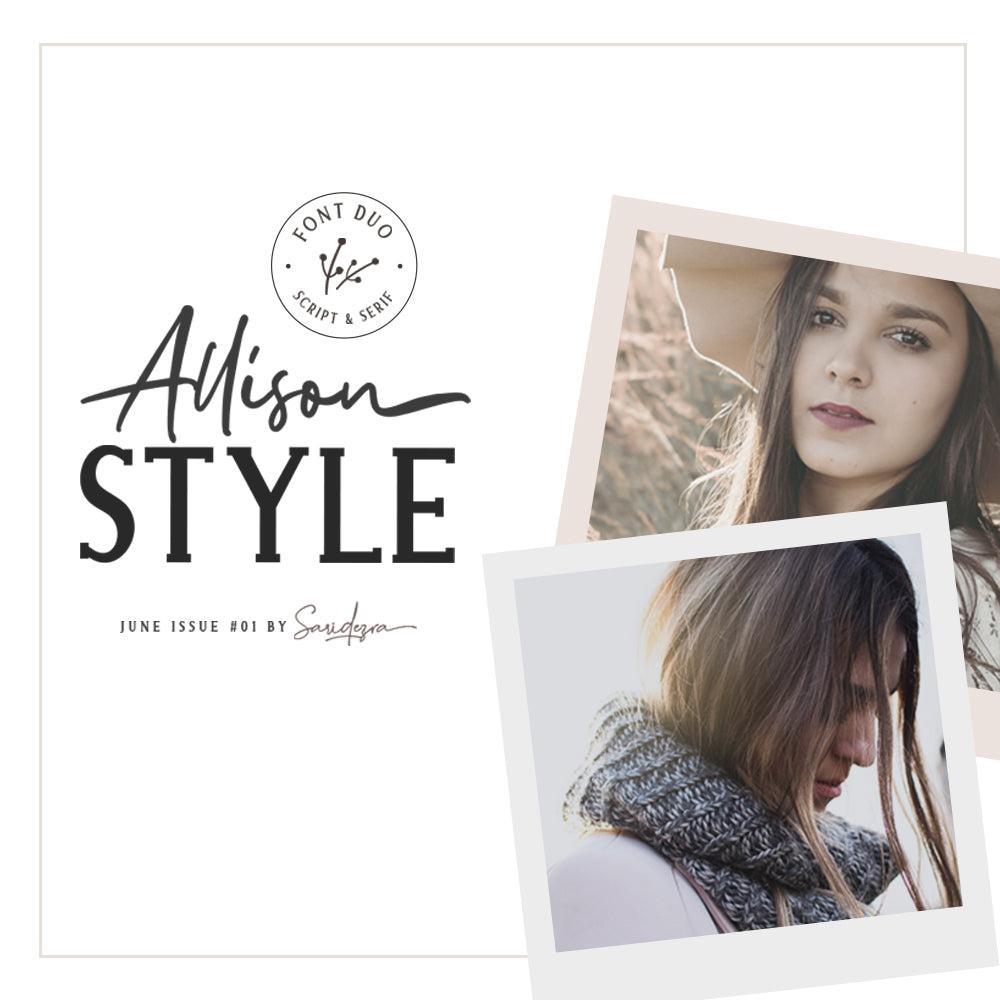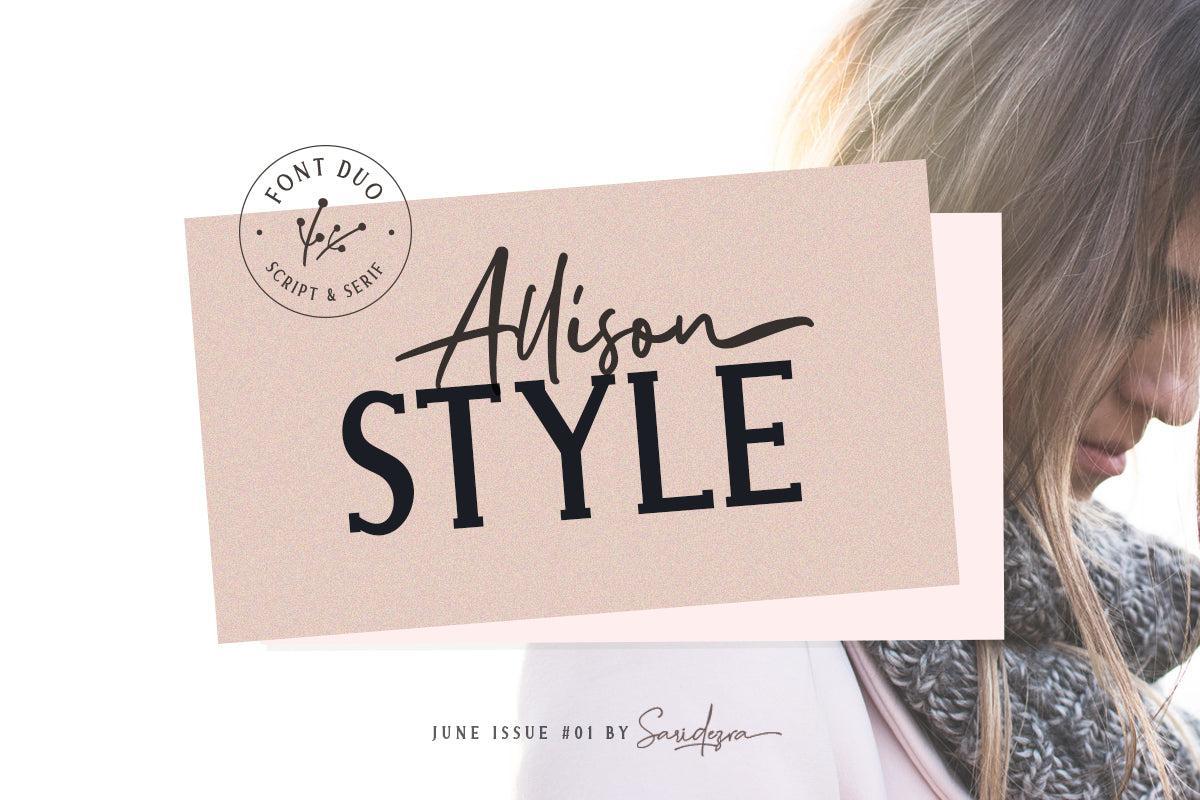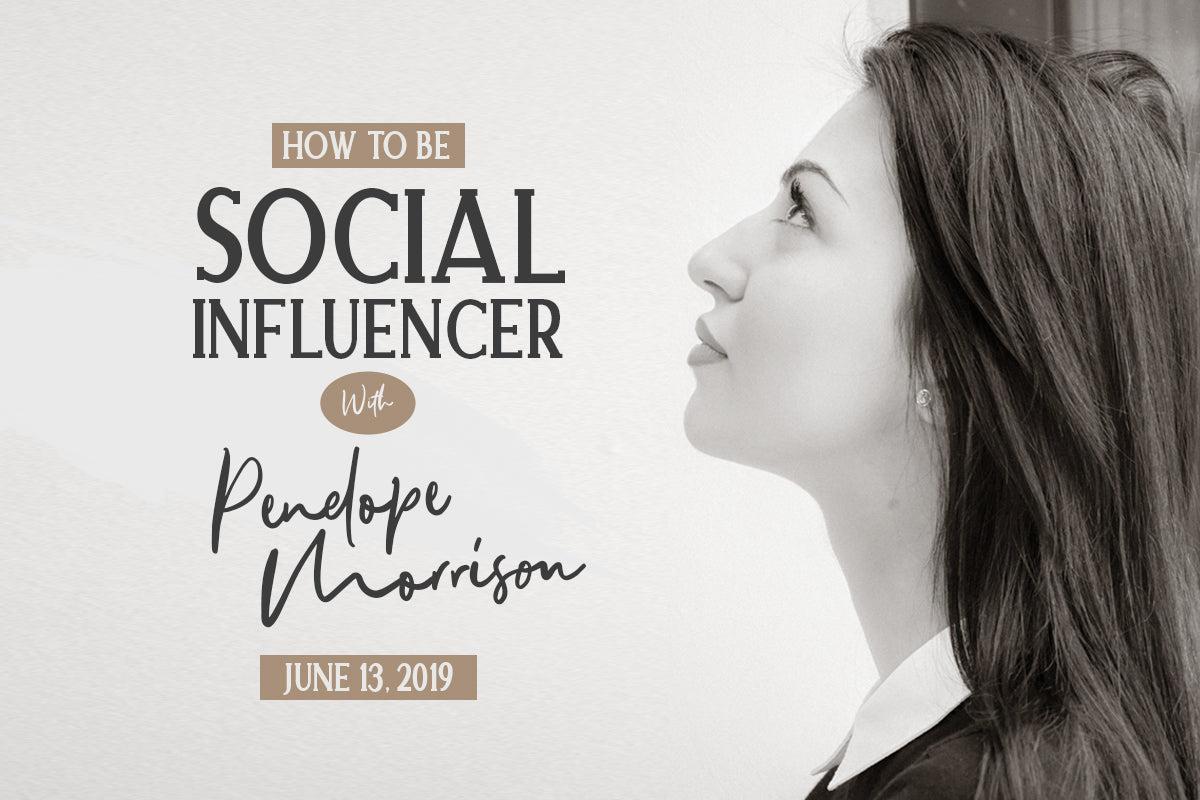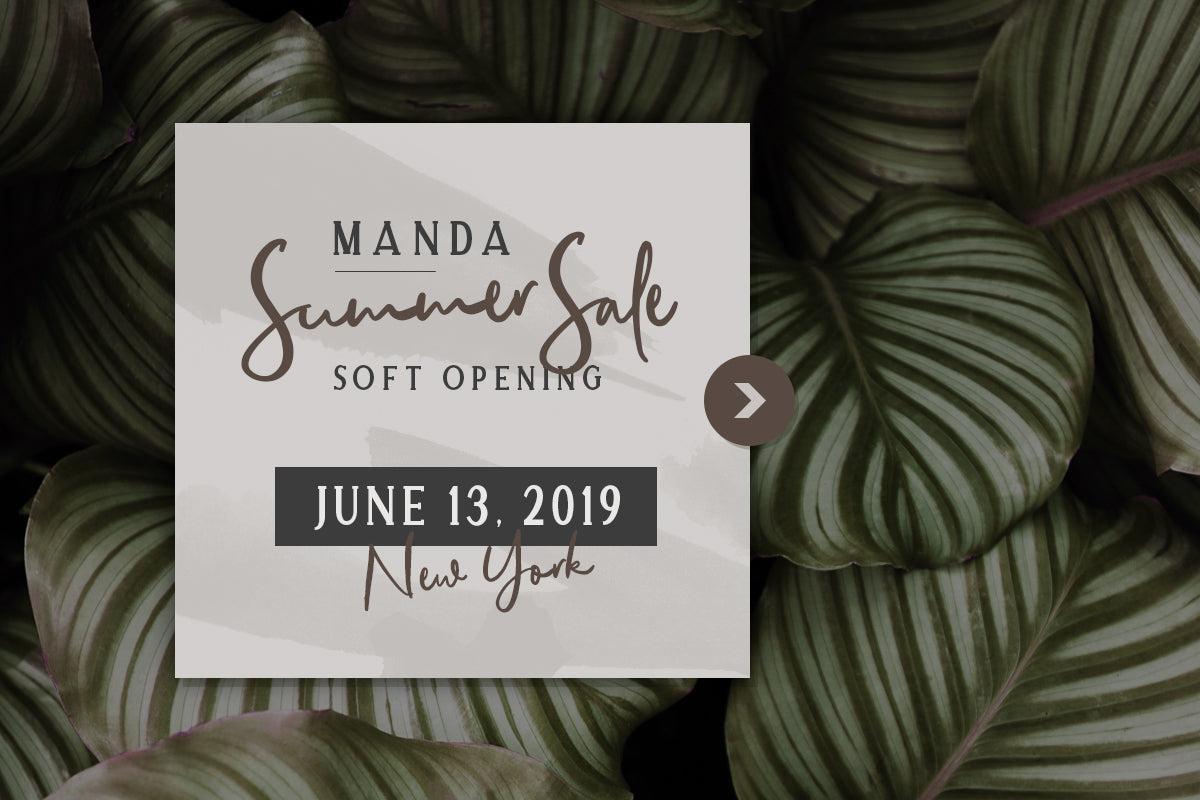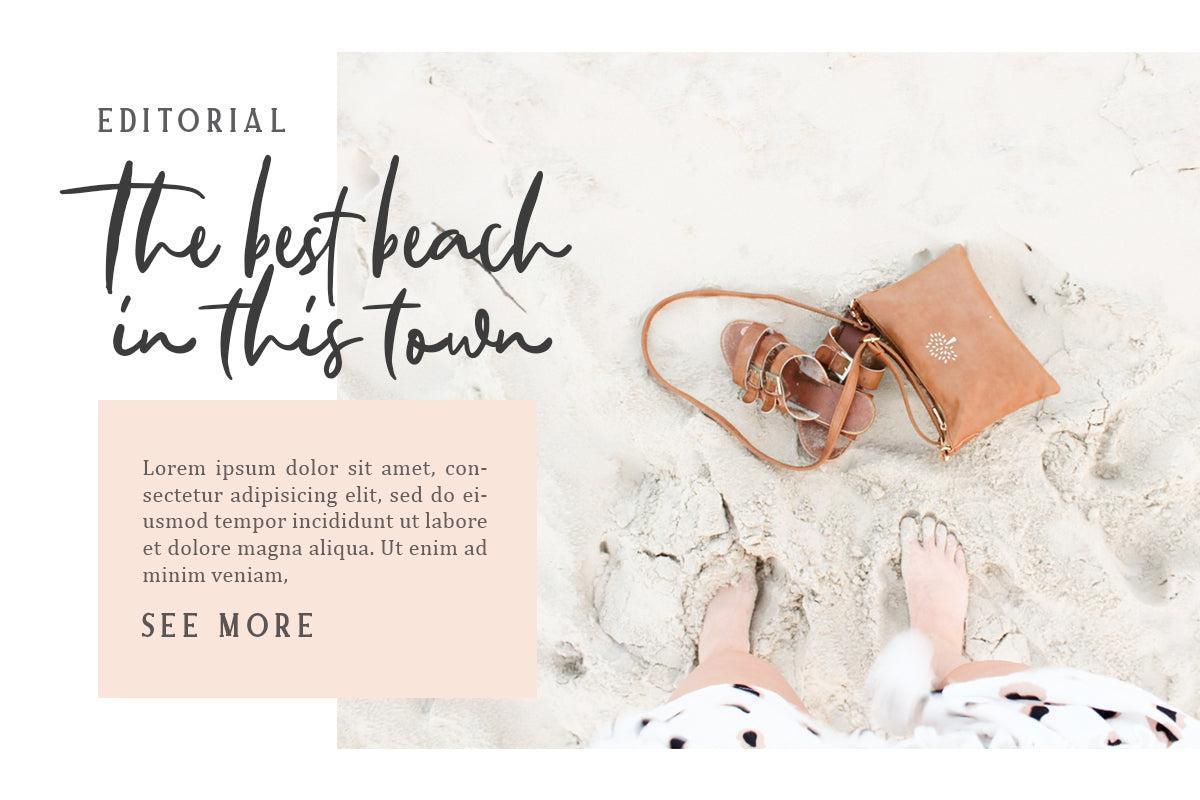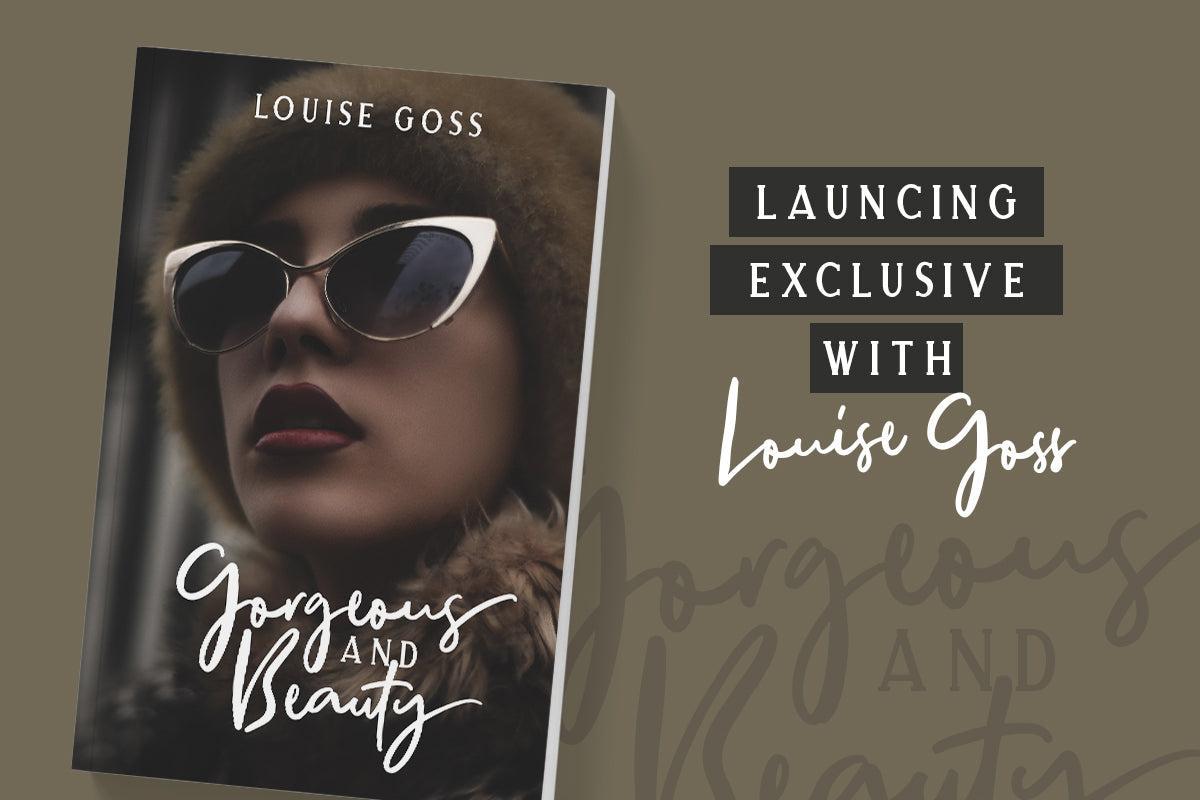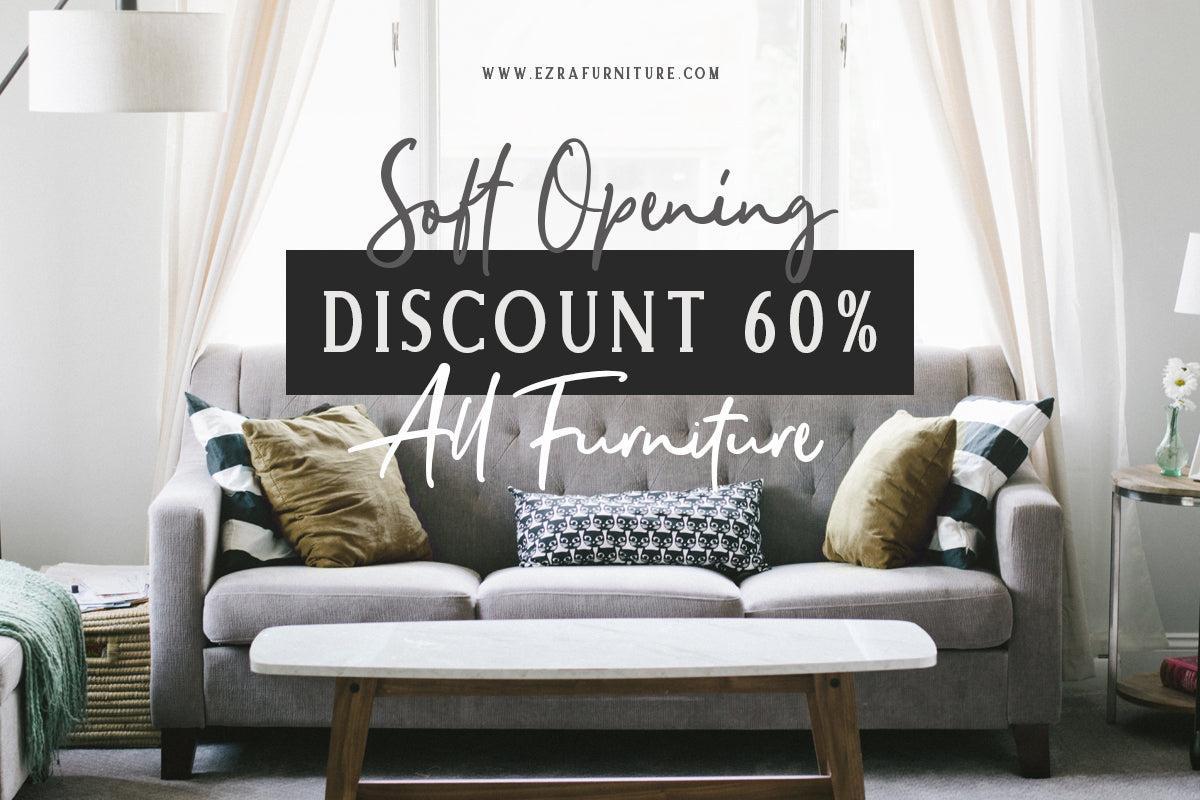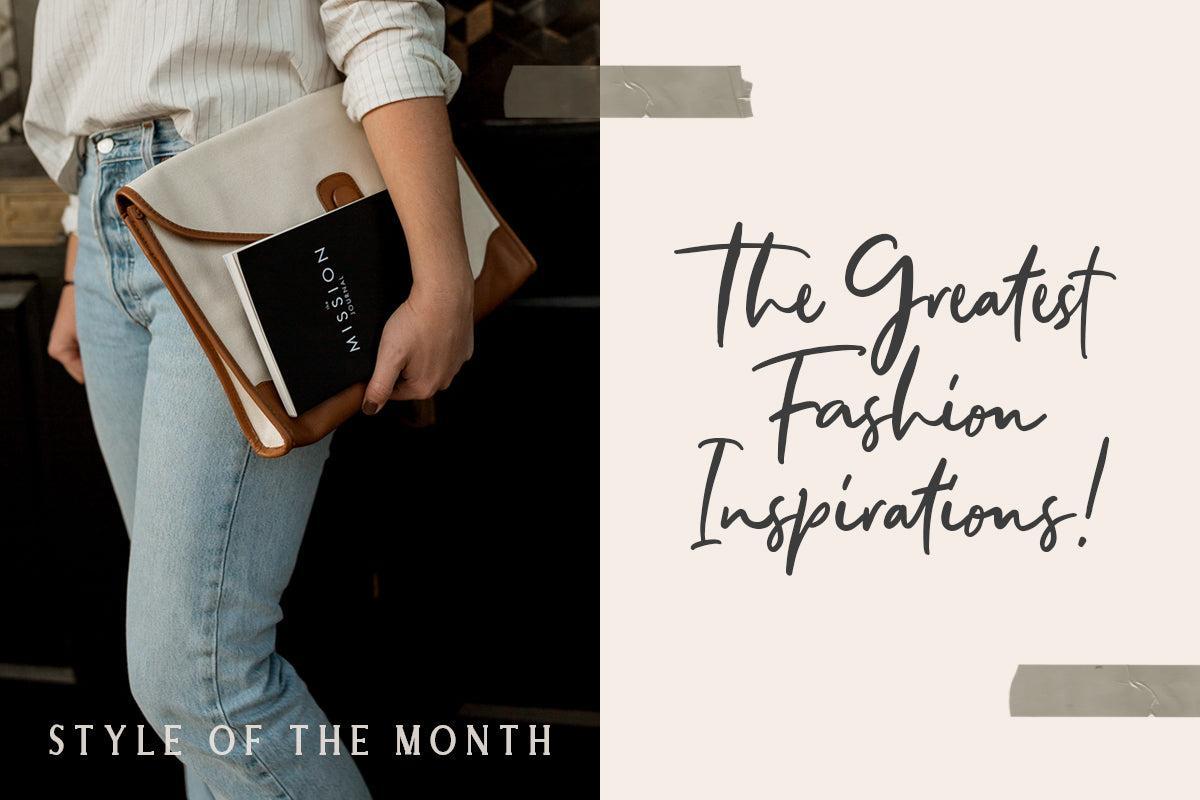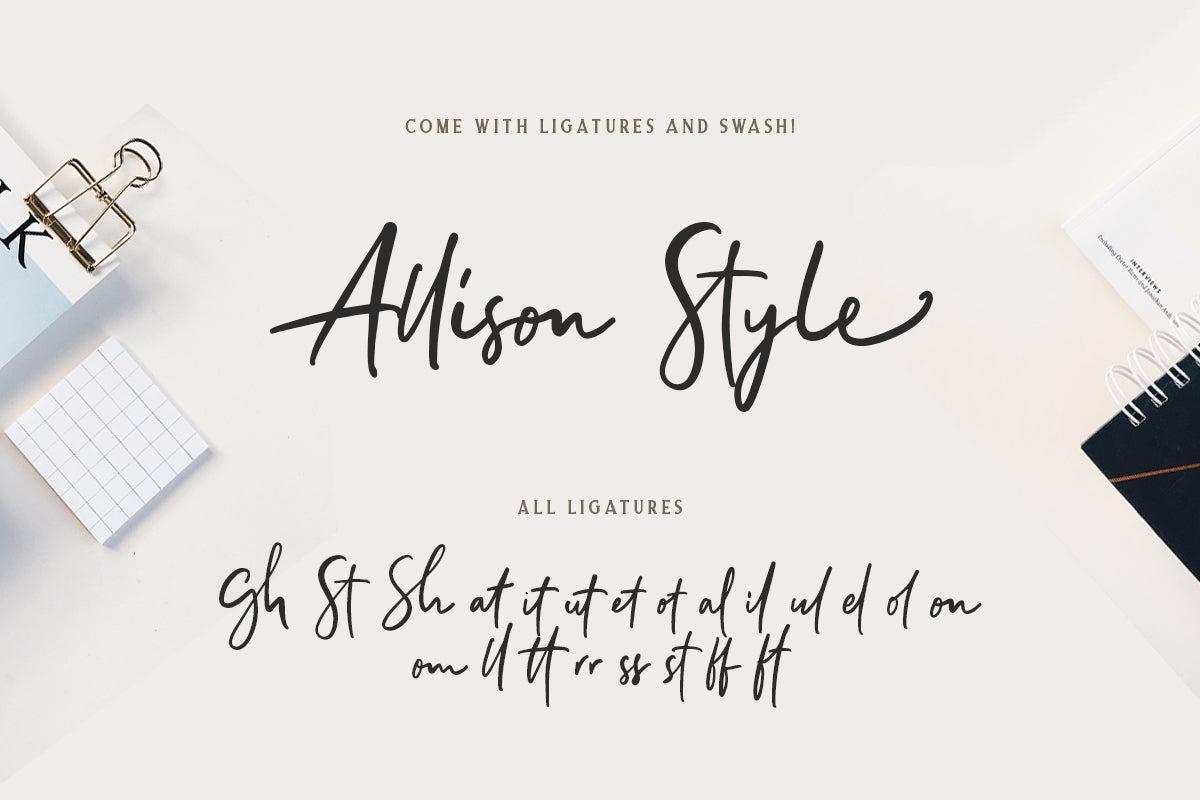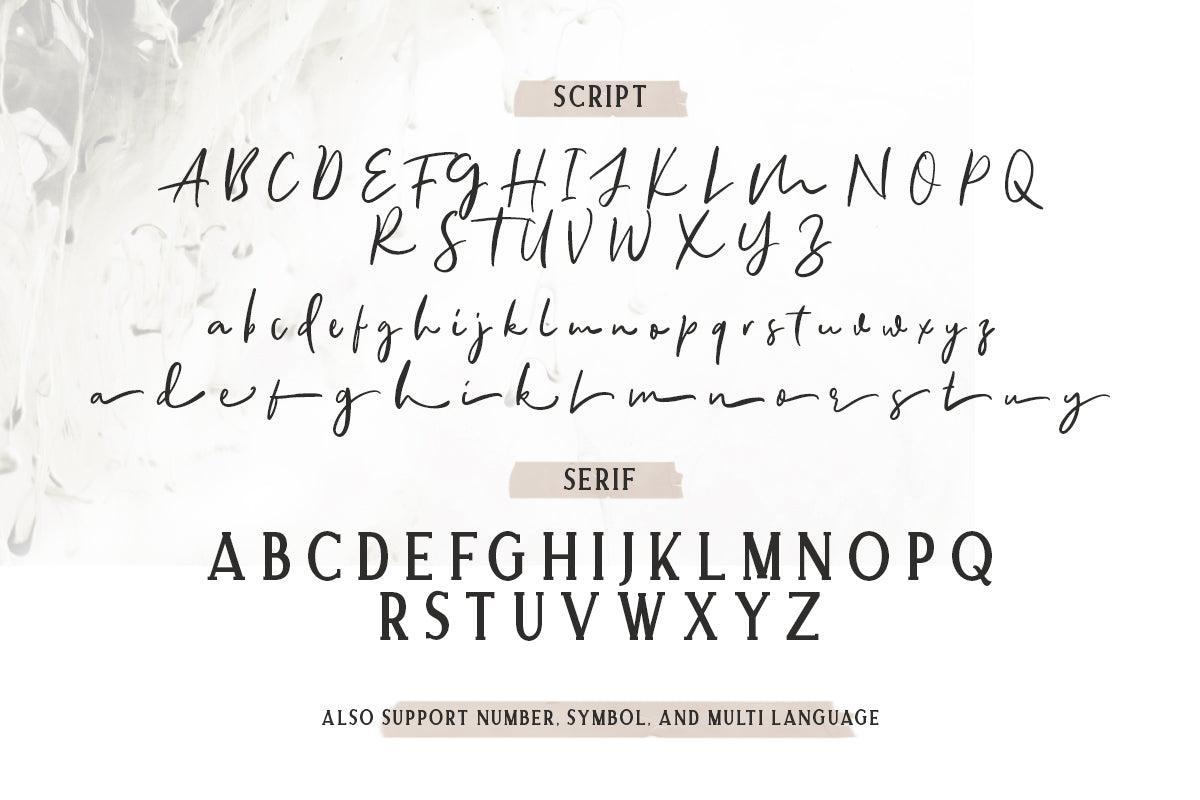
Allison Style - Font Duo
Allison Style is a font duo that includes a delicate serif font and a free hand writing script. It supports multilingual characters, numbers, symbols, end swashes, and ligatures, and is PUA Encoded.